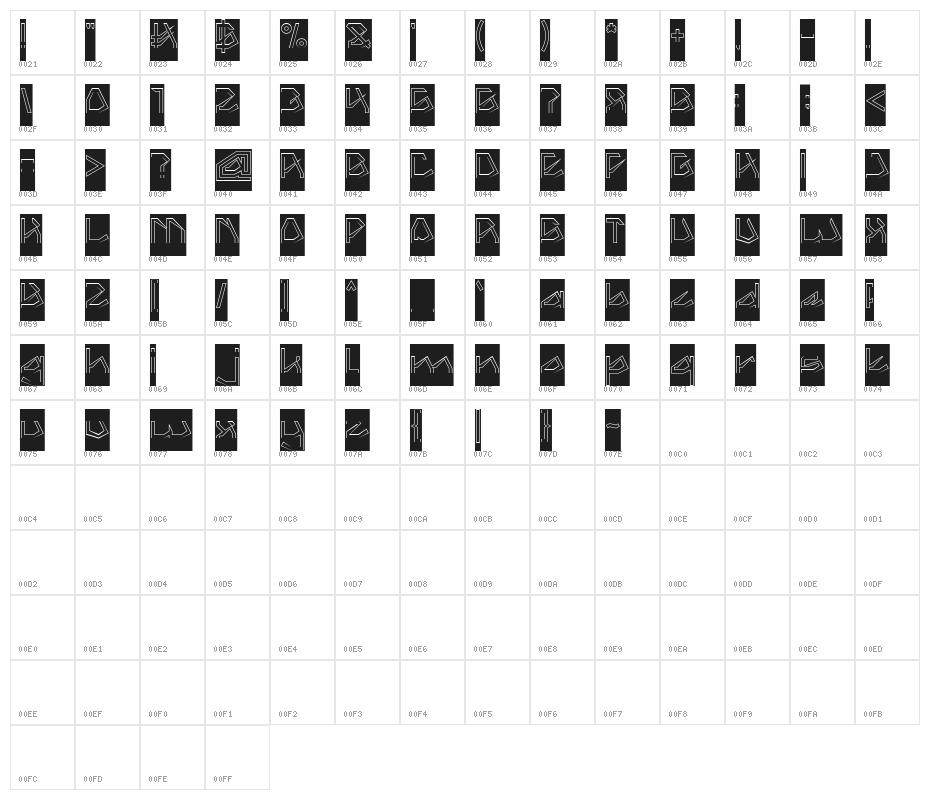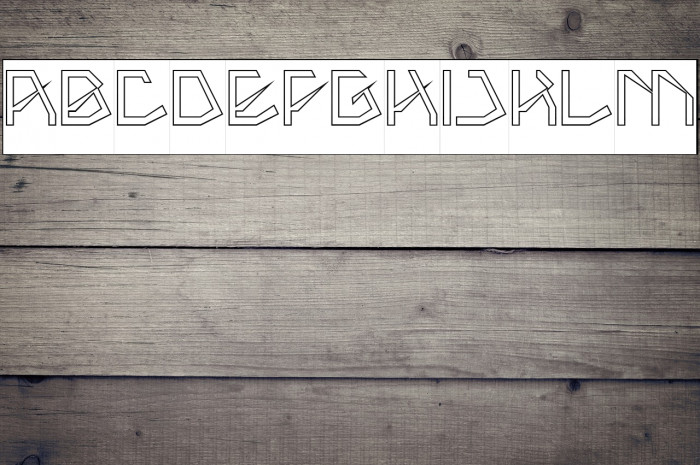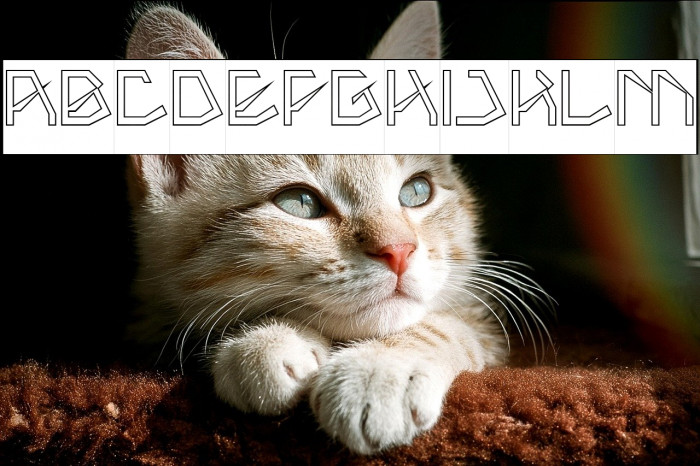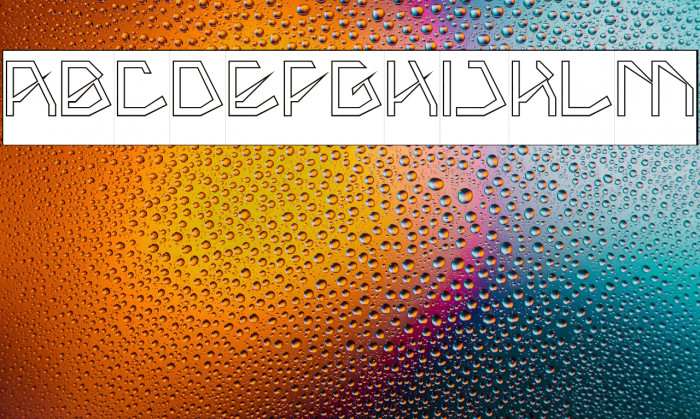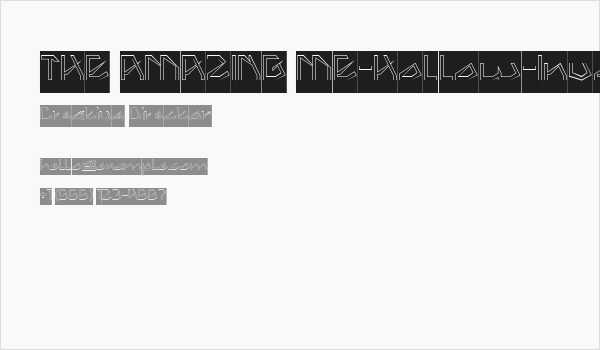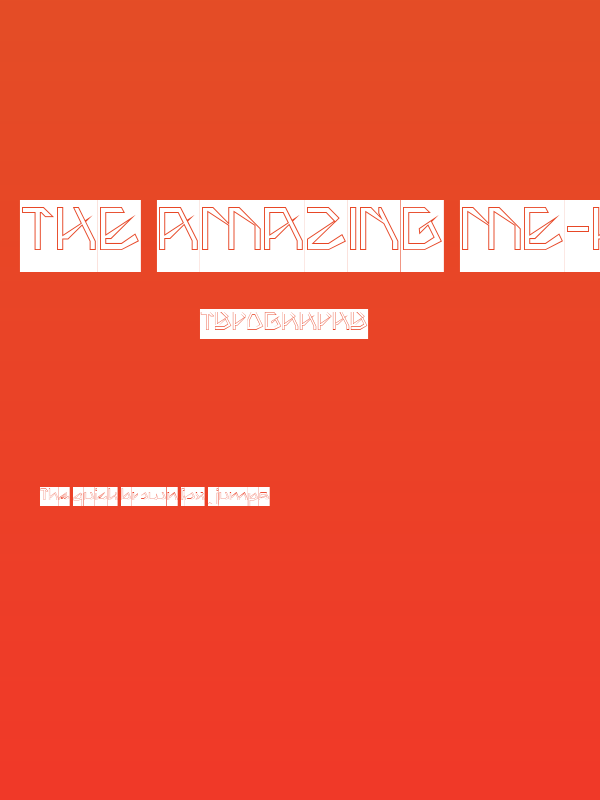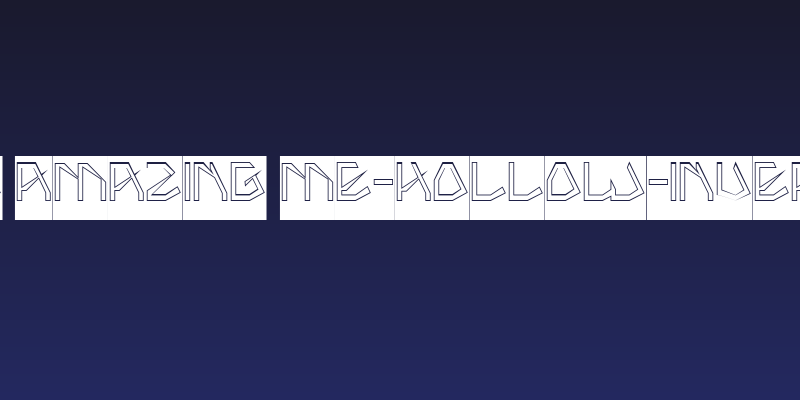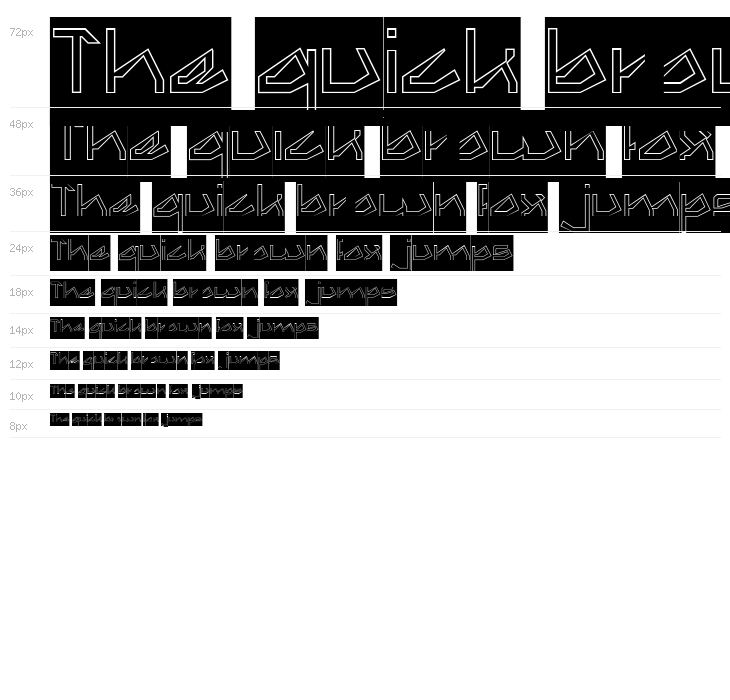
THE AMAZING ME-Hollow-Inverse Font
THE AMAZING ME-Hollow-Inverse Description
This font features a unique hollow design with an inverse style, creating a striking visual effect. The characters are constructed with angular, geometric lines that form the outlines of each letter and number, giving it a futuristic and digital appearance. The uppercase and lowercase letters maintain a consistent style, with sharp edges and a uniform thickness throughout. The numerals and special characters are designed to match the overall aesthetic, ensuring a cohesive look. This font's hollow nature allows for creative use of background colors or textures to shine through the characters, making it ideal for eye-catching designs.